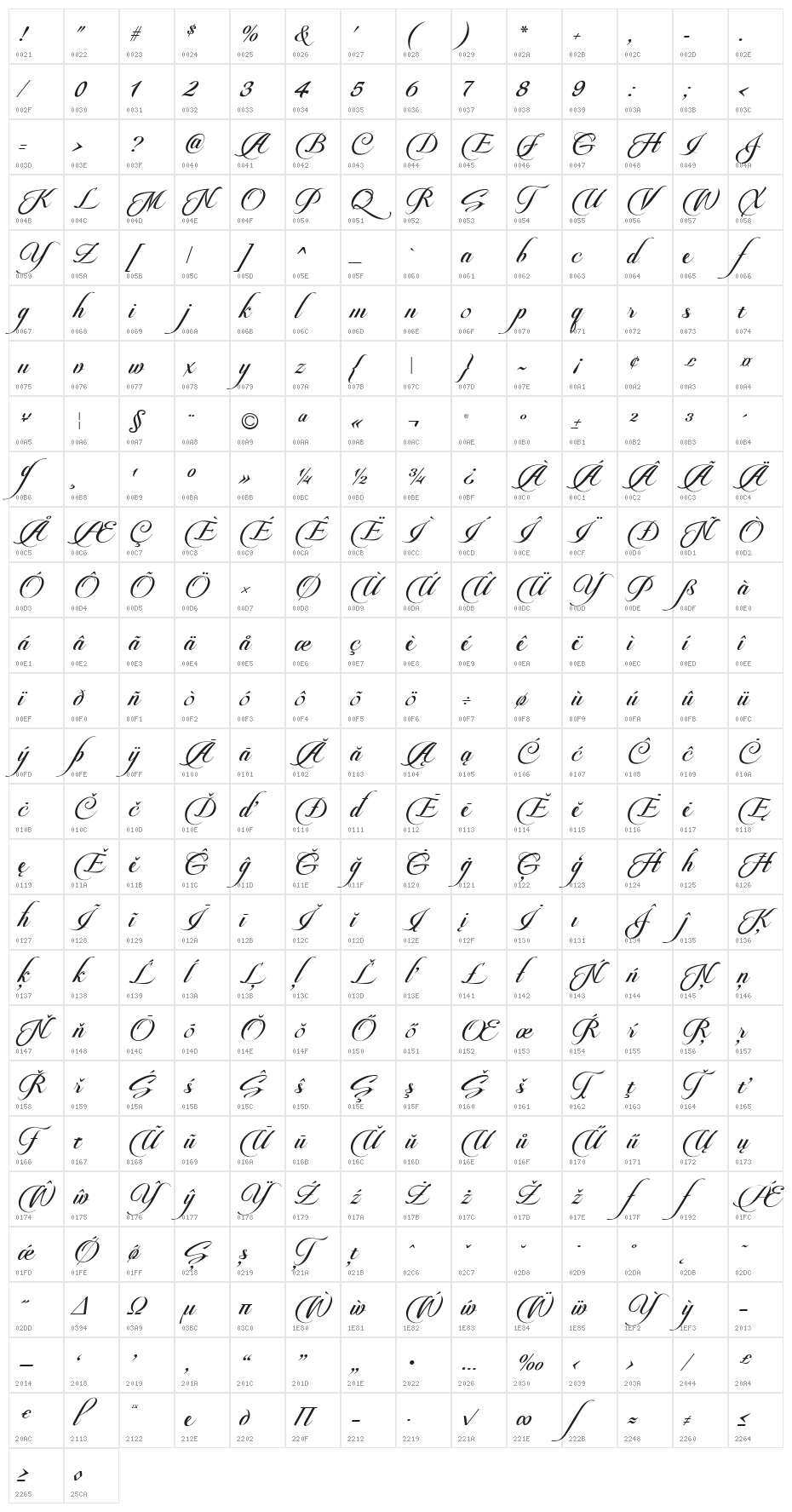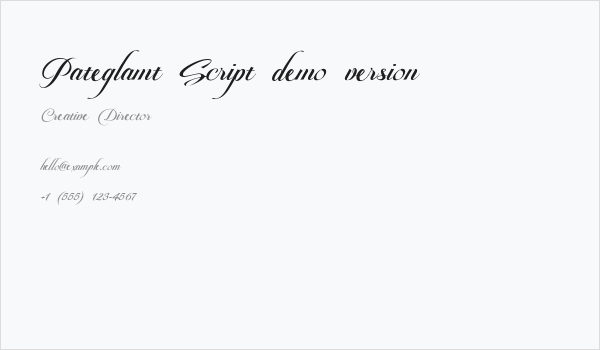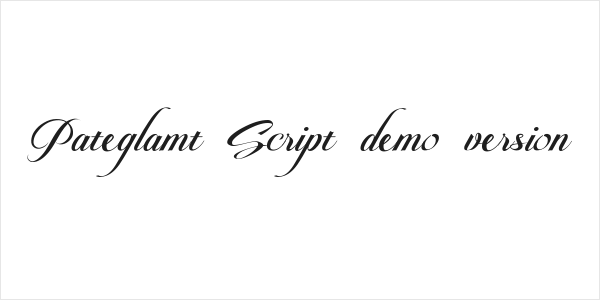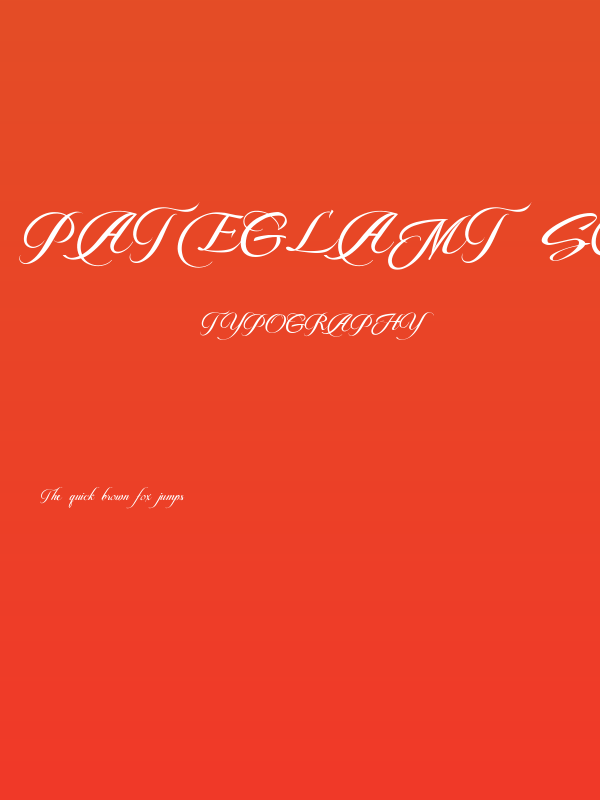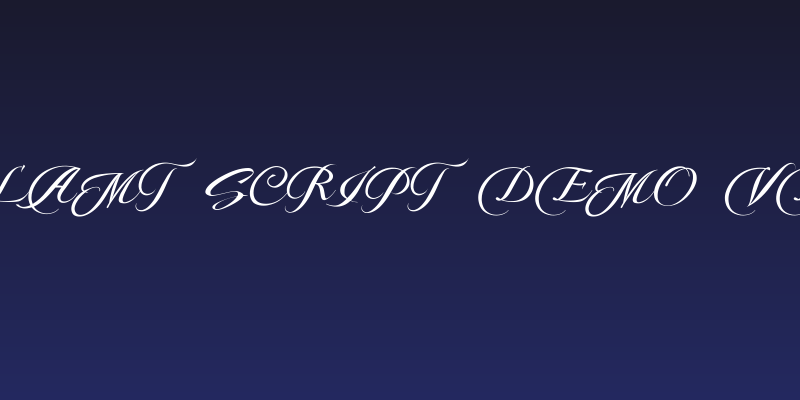
Pateglamt Script demo version Font
Pateglamt Script demo version Description
This elegant script font features flowing, cursive letterforms with a classic and sophisticated style. The uppercase letters are ornate, with sweeping curves and flourishes that give a sense of movement and grace. The lowercase letters maintain a consistent flow, with smooth connections between characters, enhancing readability while preserving the decorative nature. The numerals are styled to match the script's elegance, making them suitable for formal invitations or branding. Special characters are designed with the same attention to detail, ensuring a cohesive look across all text elements.
| Proposed Projects | Ideal for wedding invitations, luxury branding, elegant signage, and high-end product packaging. |